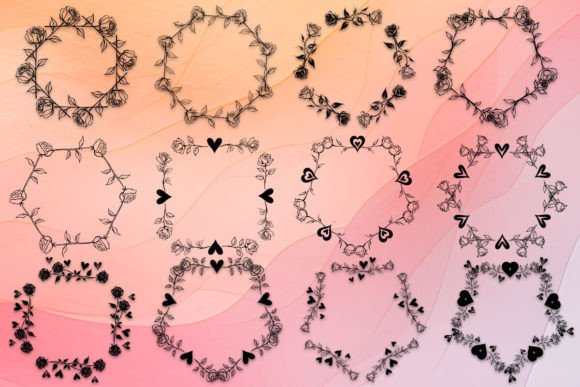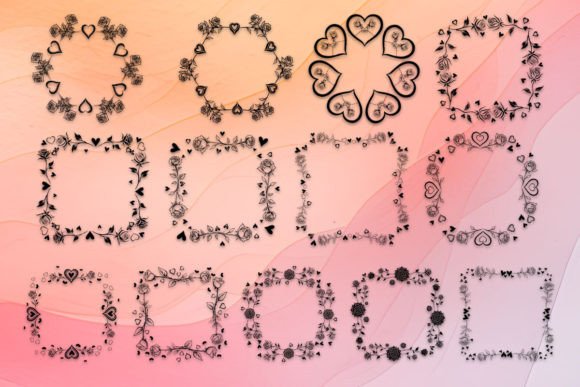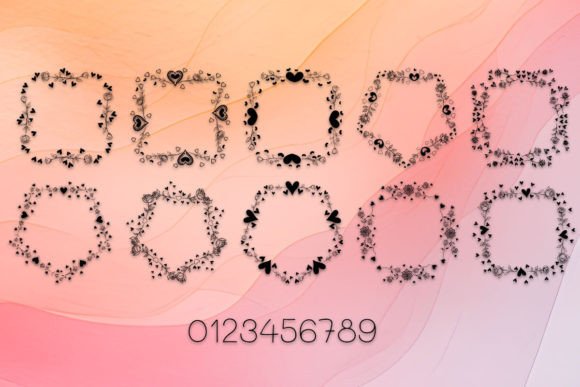
Introduction to Rose Frame Font
Have you ever stumbled upon a design element that instantly transports you to a world of romance and elegance? For designers and creatives, this moment of serendipity can be a game-changer. It’s the moment when you discover the perfect font that sets the tone for your project. For us, that moment came with the Rose Frame Font – a stunning collection that will make your designs bloom with love.
As a valuable design resource, the Rose Frame Font is a must-have for any creative project that requires a touch of sophistication. With its intricate details and high-quality design, this font is perfect for infusing your invitations, greeting cards, or artistic creations with a romantic flair. And the best part? It’s available for free download, making it an accessible addition to your design arsenal.
Key Features of Rose Frame Font
- High-quality design resource with a beautiful, intricate rose frame design
- Perfect for adding a touch of elegance and sophistication to any creative project, from invitations to artwork
Honest Review: Rose Frame Font
I recently had the chance to work with the Rose Frame Font, and I must say it’s been a pleasant experience. The font is a great addition to any design project, offering a beautiful and elegant touch.
- High-quality design: The Rose Frame Font is truly a high-quality design resource, perfect for creative projects that require a touch of sophistication.
However, I did encounter a few limitations during my work with the Rose Frame Font.
- ⚠️ Limited customization options: While the font itself is beautiful, I found that the customization options were limited, making it difficult to achieve the exact look I wanted.
- ⚠️ Not suitable for bold text: The Rose Frame Font is best used for delicate, elegant text. Using it for bold text can make it look cluttered and overwhelming.
Overall, I’m impressed with the Rose Frame Font. It’s a great addition to any design resource library, and I appreciate the high-quality design and free download. While it may have some limitations, I believe it’s a valuable tool for any designer working on a creative project.
Use the Rose Frame Font in creative projects that require a touch of elegance and sophistication. Experiment with different font sizes, colors, and styles to achieve a unique look. Combine the Rose Frame Font with other design elements, such as images and graphics, to create a visually appealing design.
The Rose Frame Font is perfect for designing invitations, greeting cards, and other creative projects that require a romantic and elegant touch. It’s also great for creating social media graphics, blog posts, and other online content that requires a high-quality design resource.